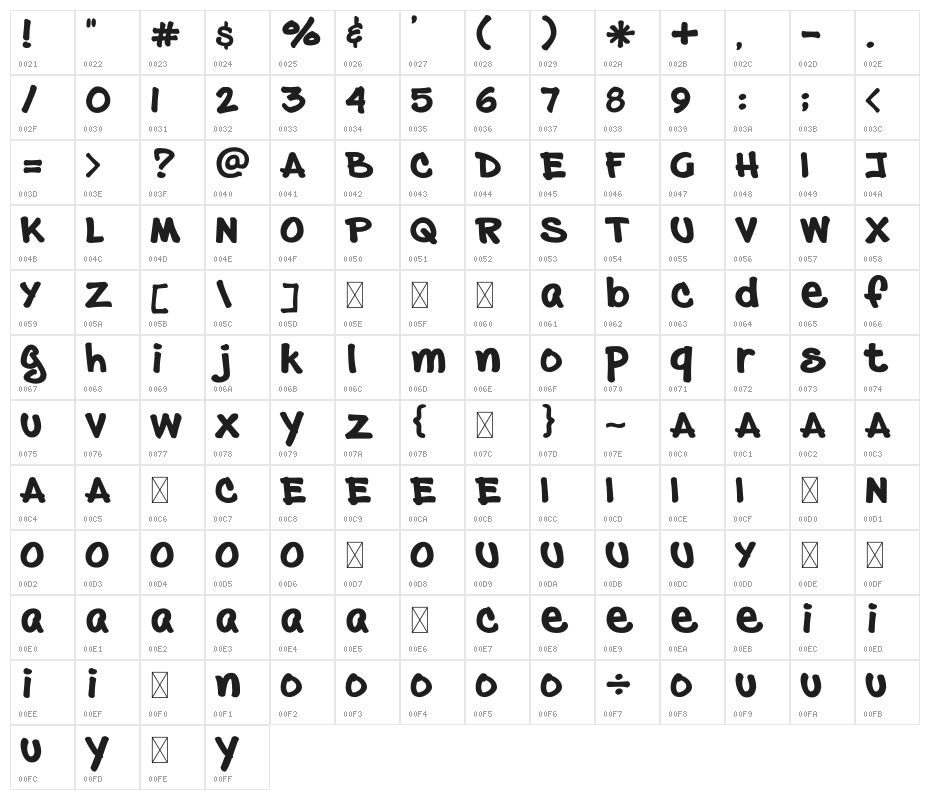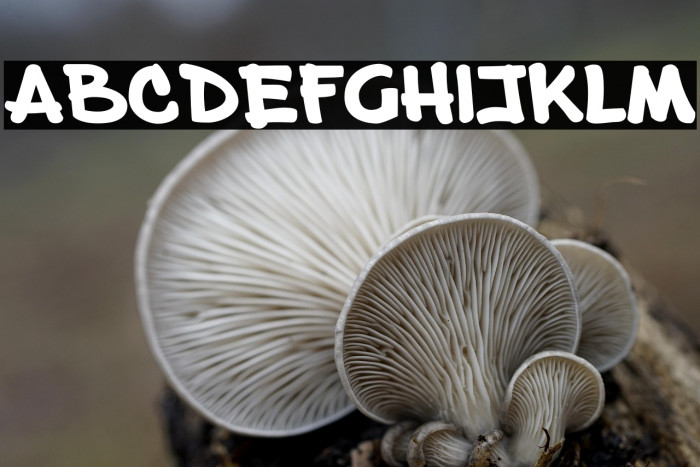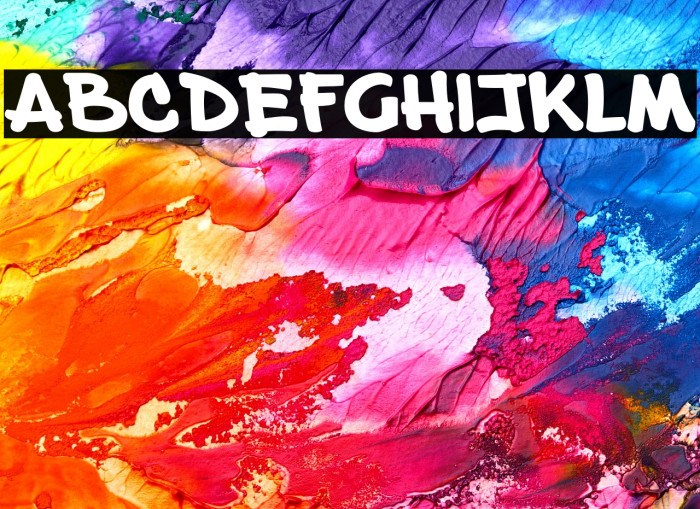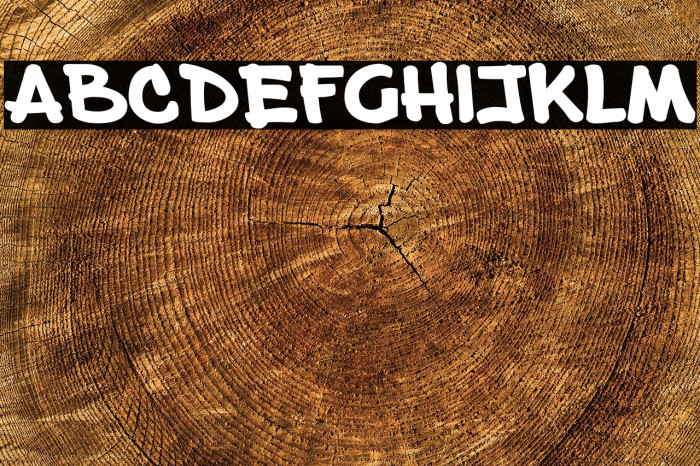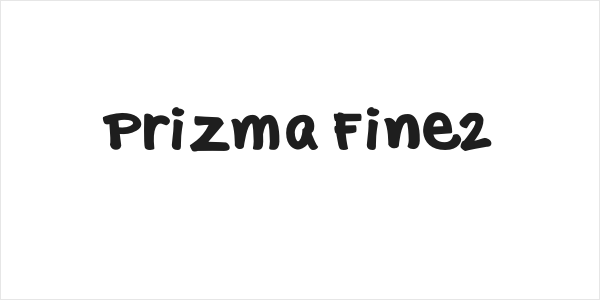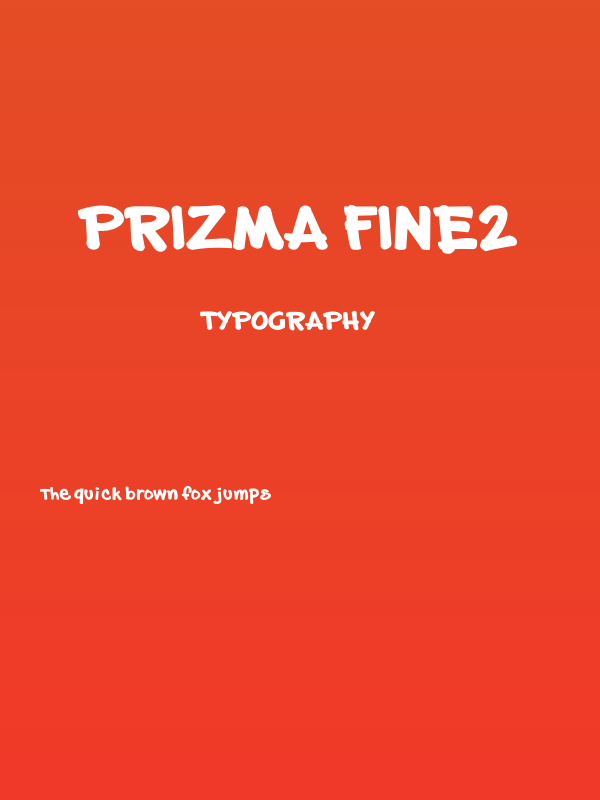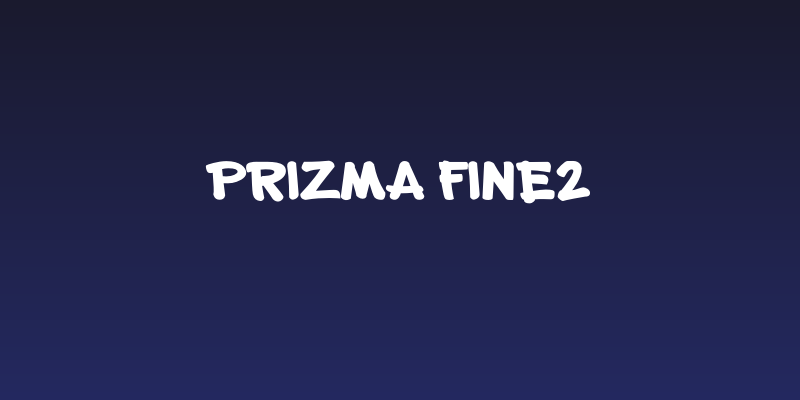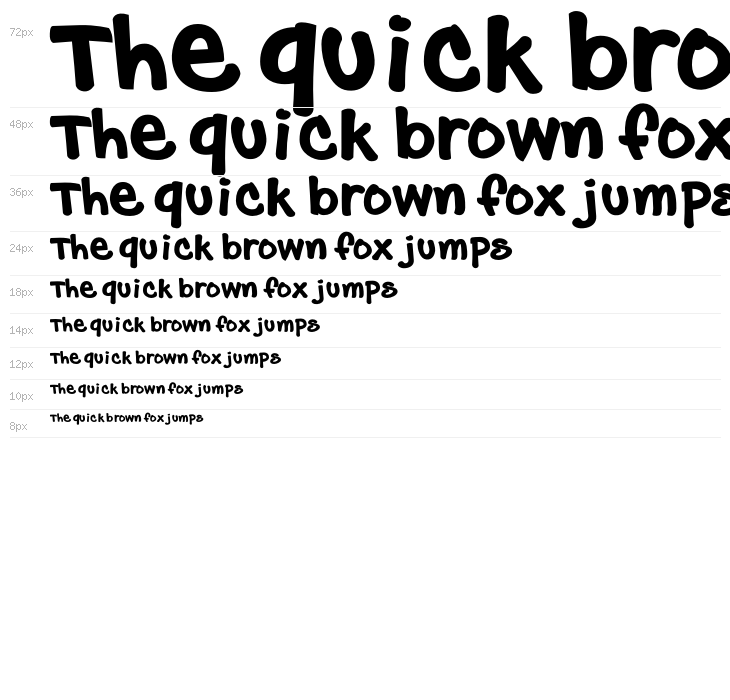
Prizma Fine2 Font
Prizma Fine2 Description
A playful, bold handwritten font with rounded edges and a casual style.
| Proposed Projects | Children's books, casual branding, playful posters. |